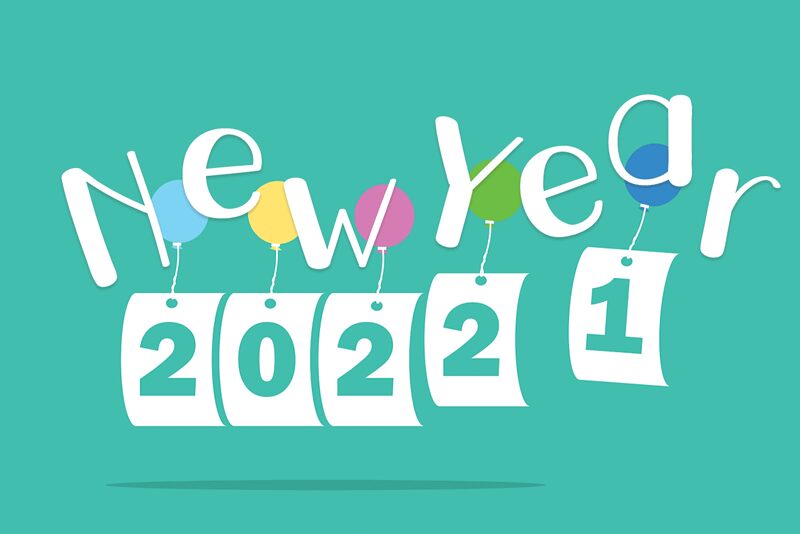
New Year
New Year is a simple and quirky handwritten font. Add this adaptable and informal handwritten font to each of your creative ideas and notice how they come to life.